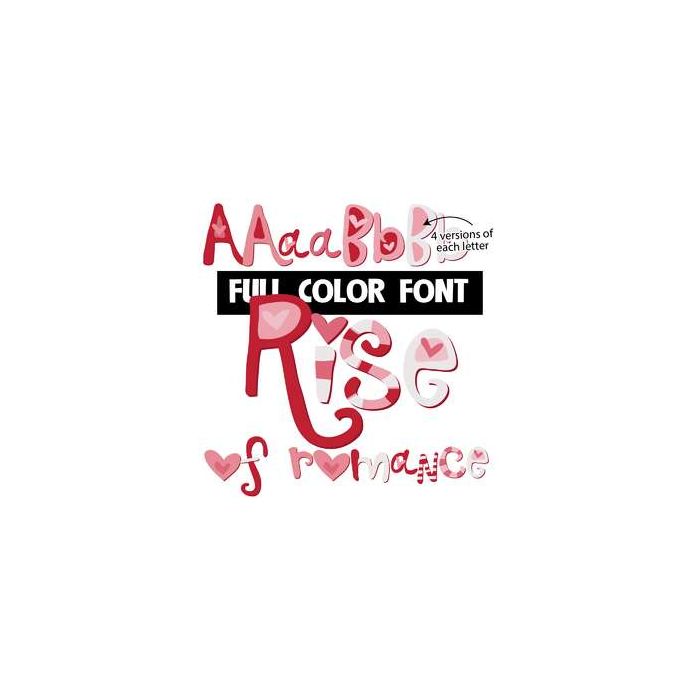
This full-color font features pink and red-colored, whimsical lettering. This font works best for titles, displays, posters and more. Please note color fonts will show as black in non compatible programs. This font type is compatible with Silhouette Studio